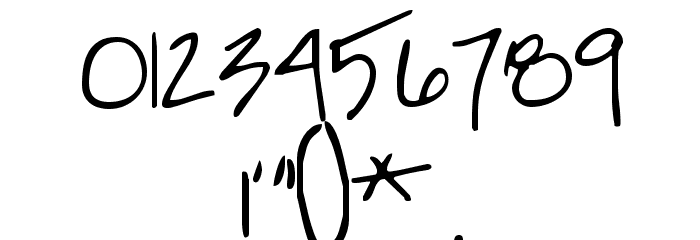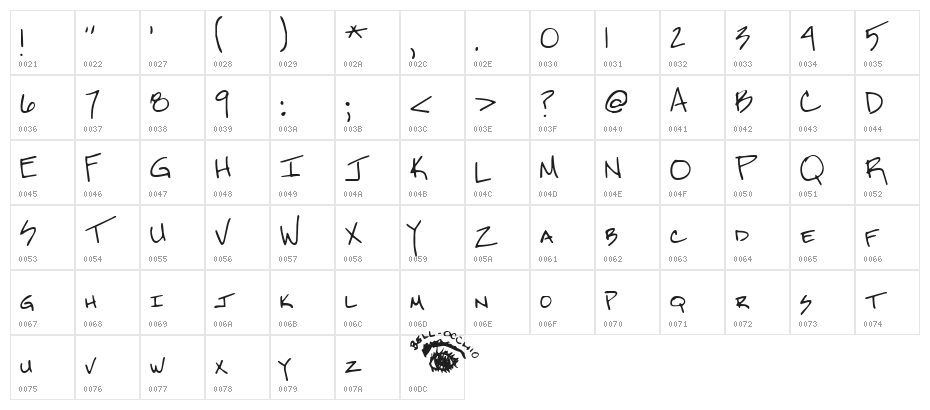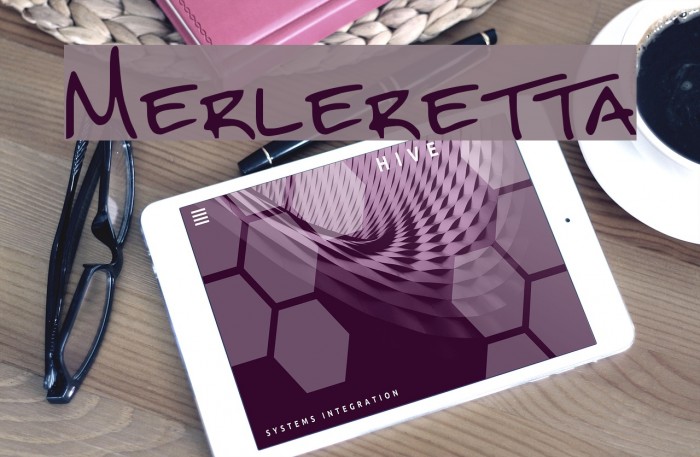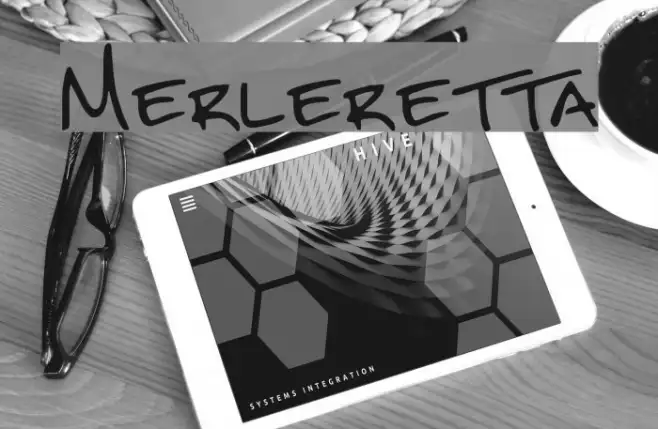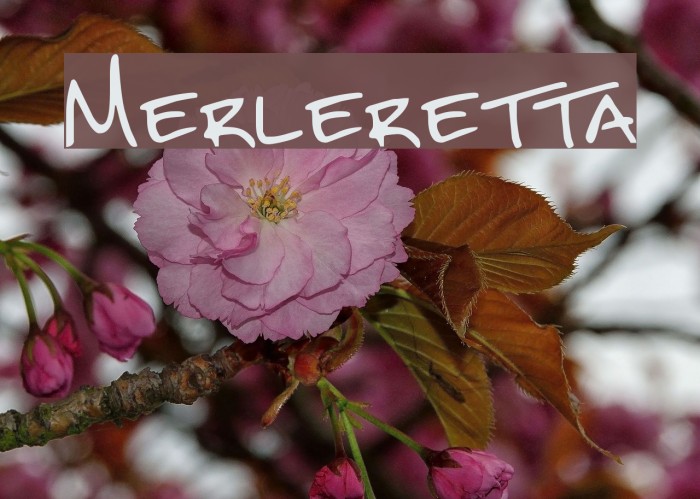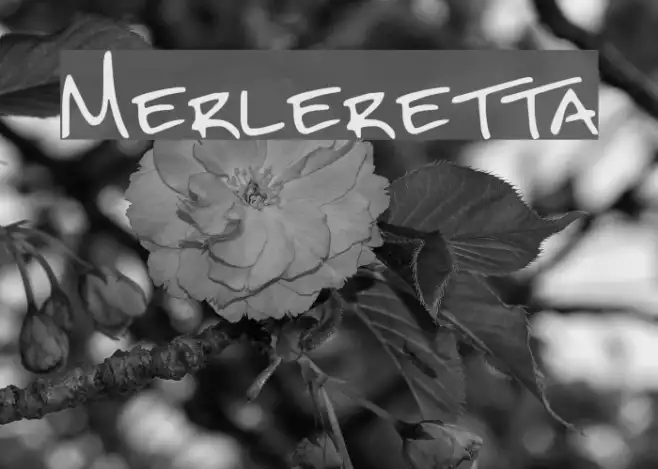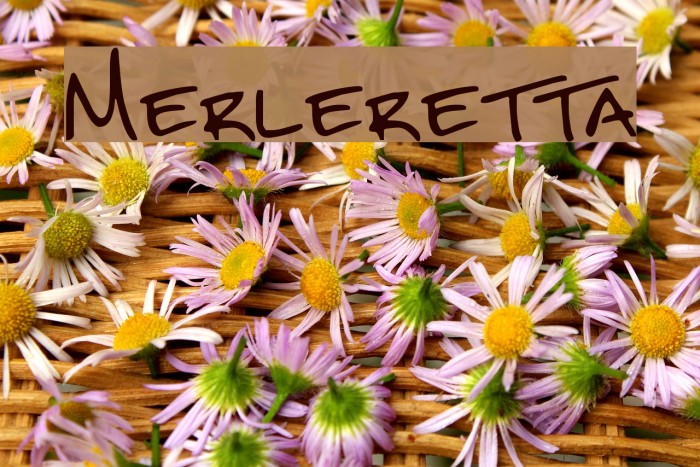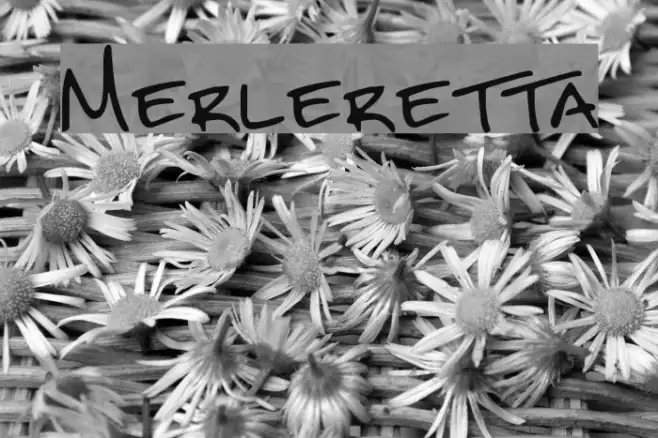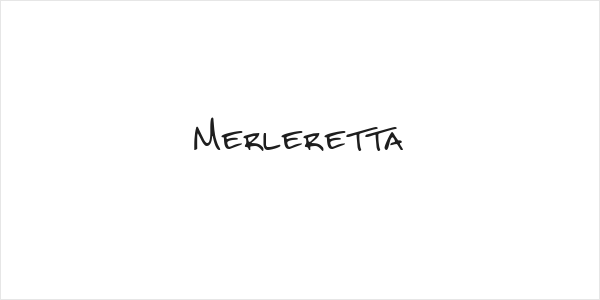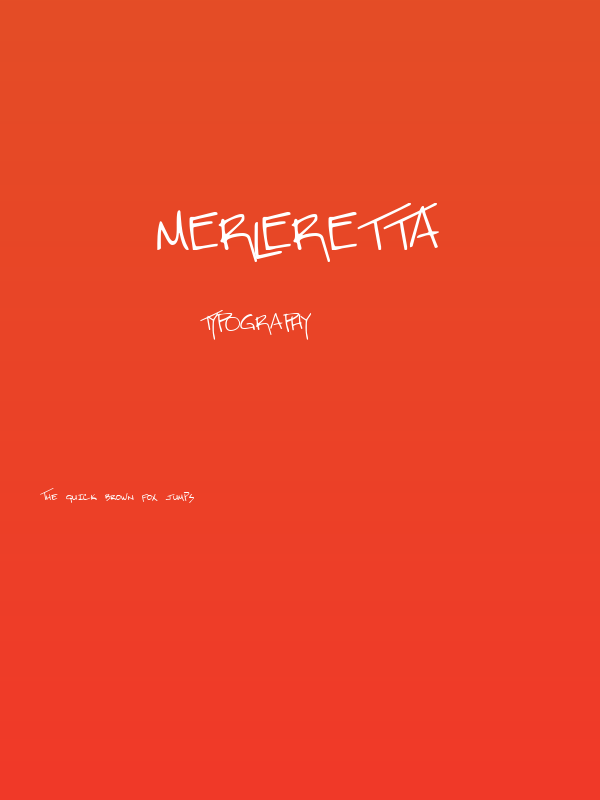
Merleretta Font
Merleretta Description
This font exudes a casual, handwritten style with a playful and informal appearance. The letters are slightly slanted, giving it a dynamic and lively feel. The strokes are uneven, mimicking the natural flow of handwriting, which adds a personal touch. The uppercase and lowercase letters maintain a consistent style, with rounded edges and varying stroke thicknesses that enhance its organic look. The numerals and special characters follow the same aesthetic, ensuring uniformity across all characters. This font is ideal for projects that require a friendly and approachable vibe.
| Use Case | Logos, Headlines, Informal text |
| Proposed Projects | Great for greeting cards, personal notes, casual branding, and social media graphics. |